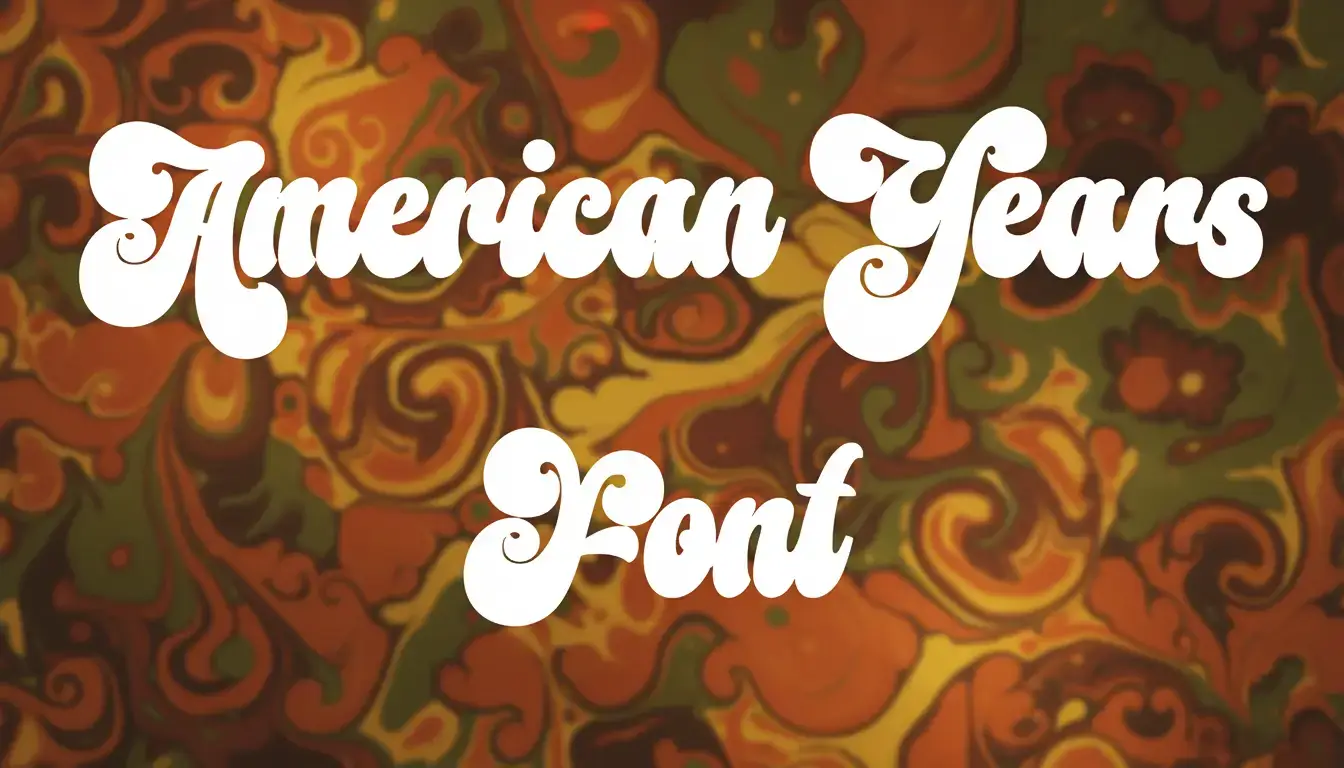
American Years Font
Mans Greback designed American Years, a bold, retro script typeface, and released it in late 2023. Groovy 1970s and 1980s typography heavily inspired the font, which mimics the nostalgic feel of vintage vinyl record covers, retro branding, and funk music posters.
American Years is an old school font designed by Mans Greback and published by Mans Greback AB. Its letters look like they came off an old sign or a vintage product label. You can download it for free and test it with your own words in the preview above.
What You Can Type With American Years
With complete upper and lowercase letters and all ten digits, American Years is ready for real wording, not just a single headline. Common punctuation such as &, !, ? and @ is included as well. It also has the accented letters you need for Spanish, French, German, Portuguese and Italian.
Where American Years Works Best
Think of American Years for vintage signs, barber shop logos and retro labels. Put it on an off-white or kraft-paper background and it instantly looks older.
Does American Years support accented letters?
Yes. American Years includes the accented letters needed for Spanish, French, German, Portuguese and Italian, so it works for more than just English.
What fonts pair well with American Years?
It pairs nicely with a classic serif or a condensed sans serif for the supporting lines.